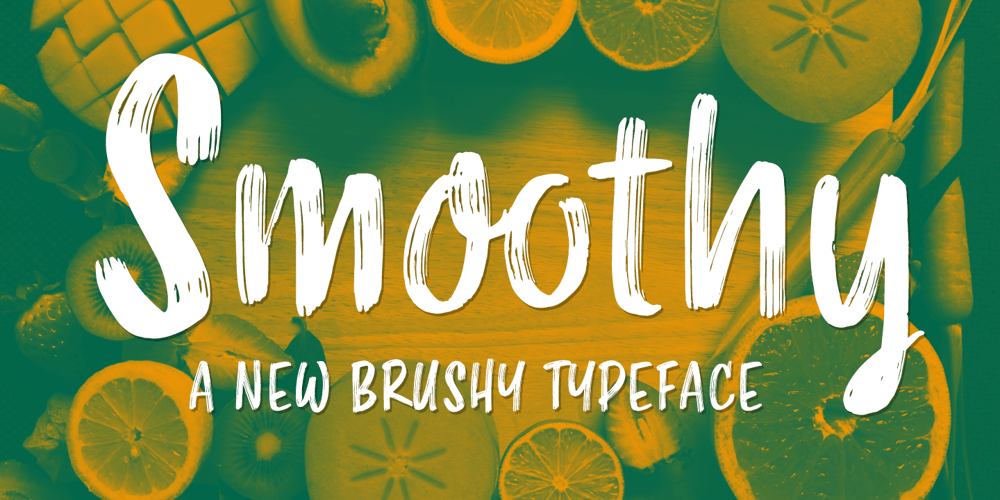
Smoothy Font Family was designed by Giuseppe Salerno, Paco González and published by Resistenza. Smoothy contains 2 styles and family package options. Hello Smoothy – brush script with attitude! This font is the perfect mix between freshy and serious. Urban, modern, handwritten, sign painting inspired, Smoothy is perfect for various occasions. Wedding invitations, T-shirts or cards, Instagram posts, is very flexible. Ligatures and stylistic alternates makes this font even more “human”.